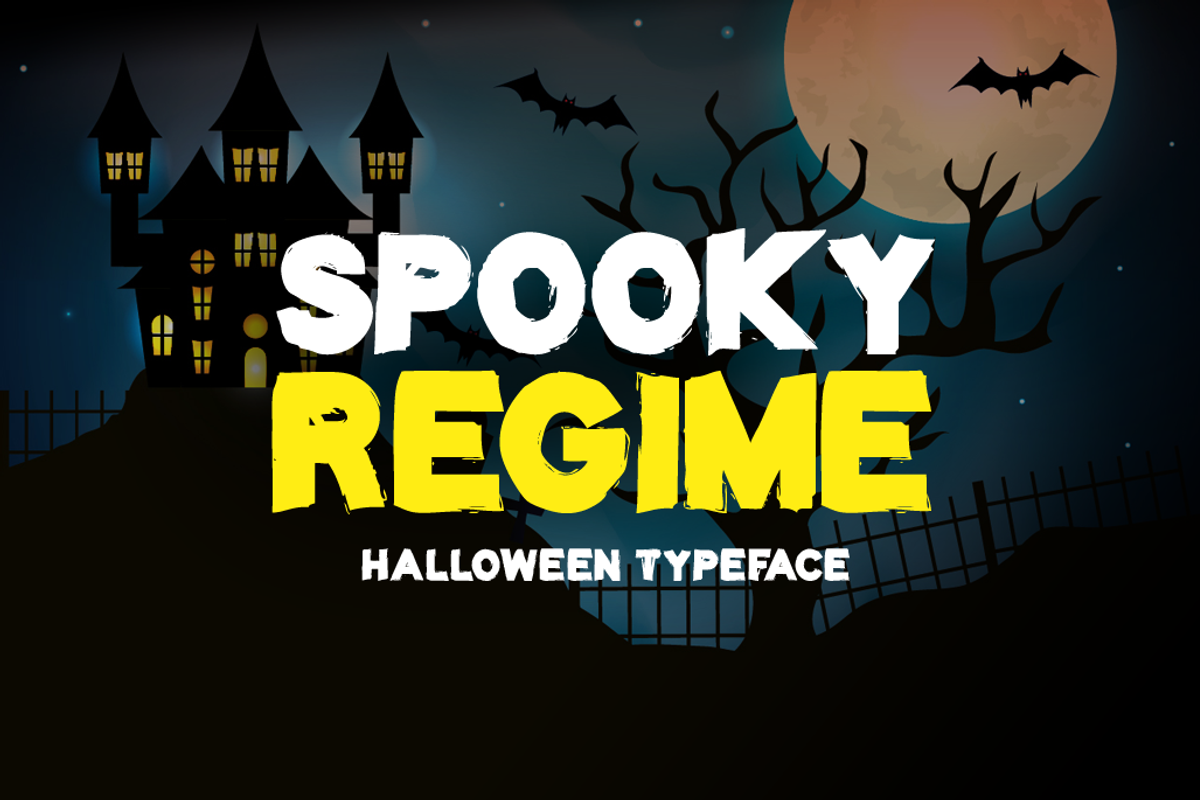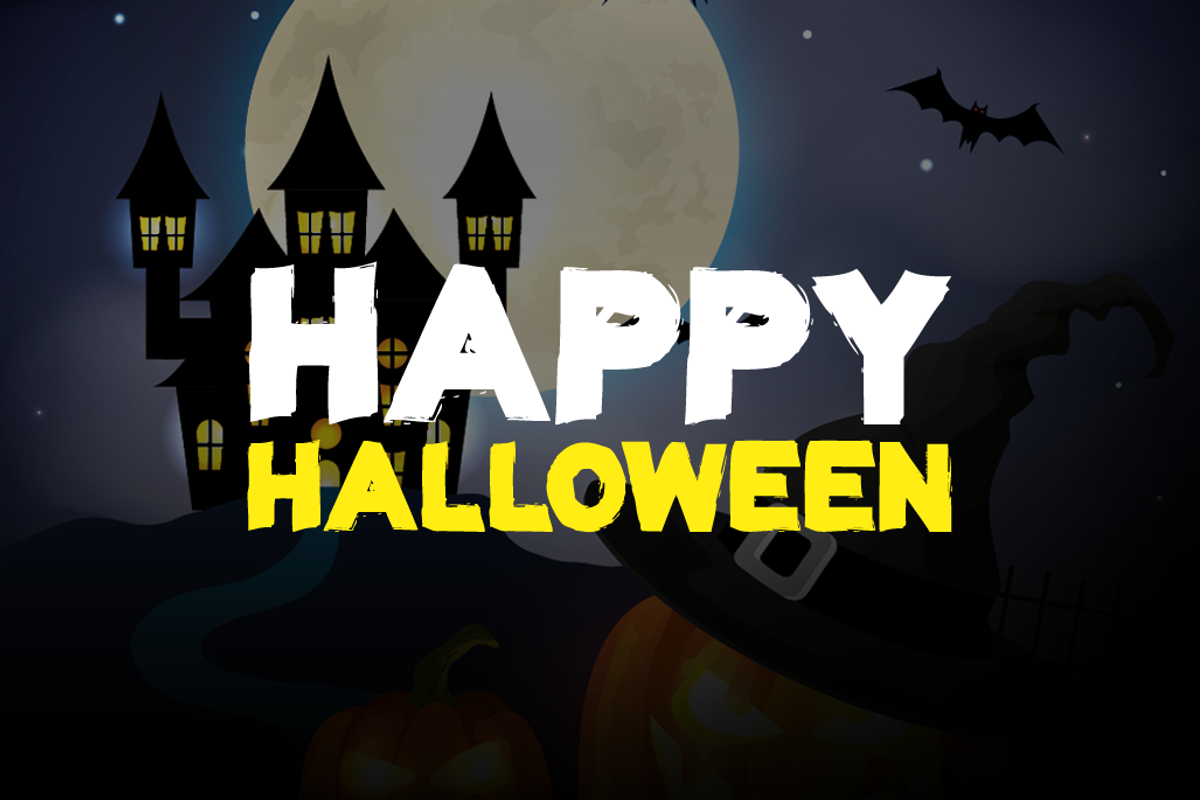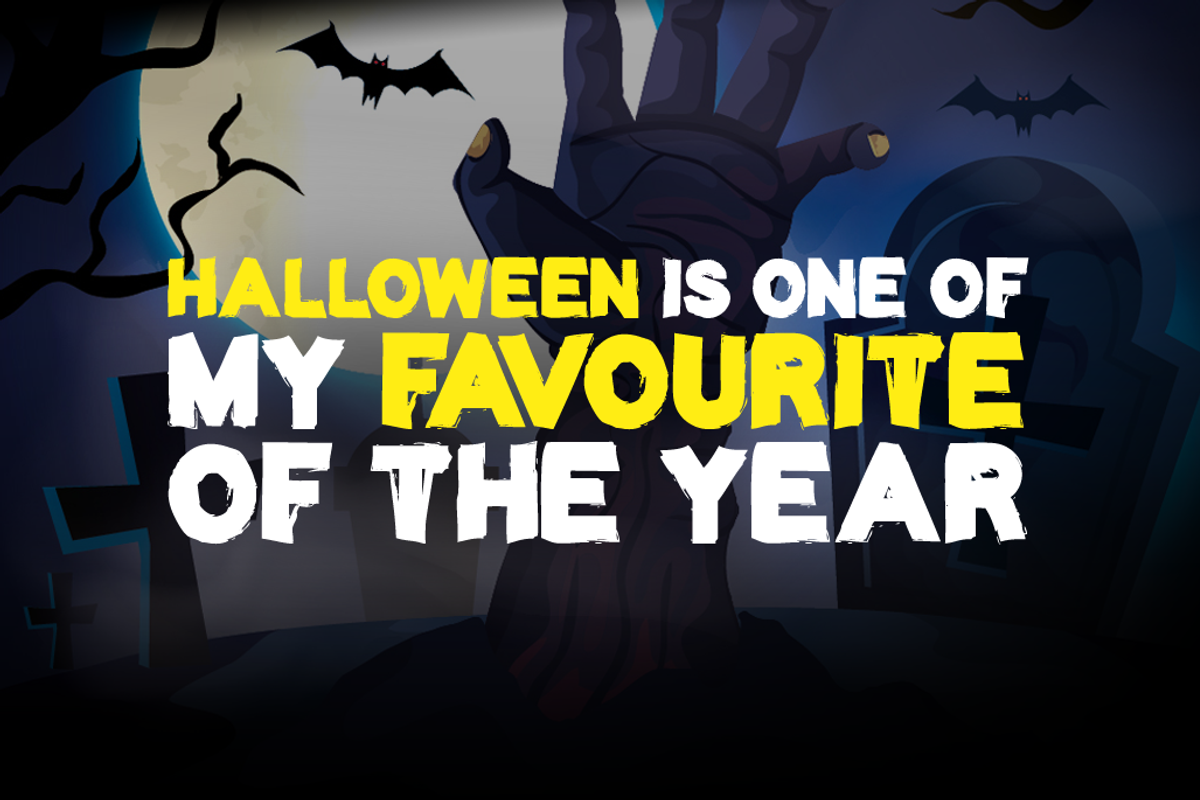
Spooky Regime Typeface
Introducing Spooky Regime!
Spooky Regime is a brand new display font. Spooky Regime is perfectly suited for stationery, logos, t-shirt, paper, print design, website header, photo frame, flyer, music cover, poster, image slider, and much more.